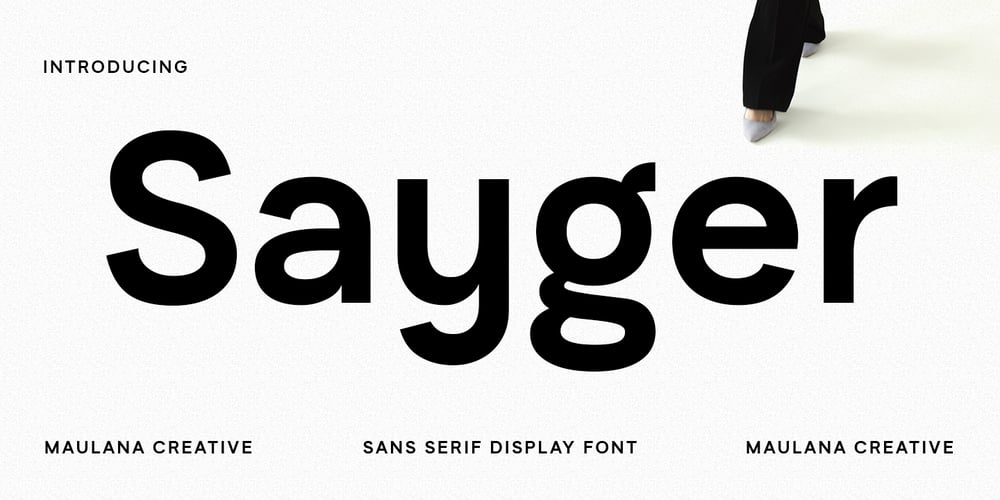
MC Sayger Font Family was designed by Gilang Maulana and published by Maulana Creative. MC Sayger contains 1 styles and family package options. Sayger is a modern minimalist sans font. Bold stroke, fun character with a bit of ligatures and alternates. To give you an extra creative work. Sayger font support multilingual more than 100+ language. This font is good for logo design, Social media, Movie Titles, Books Titles, a short text even a long text letter and good for your secondary text font with script or serif. Make a stunning work with Sayger font. Cheers, Maulana Creative